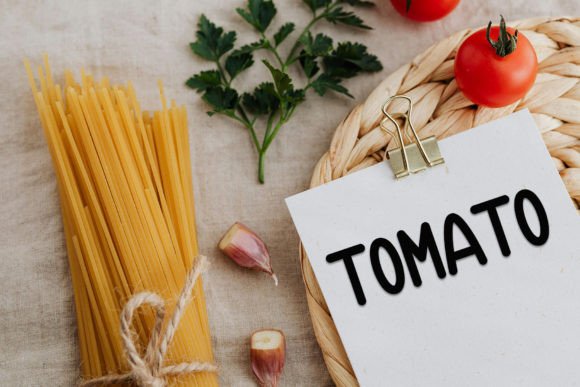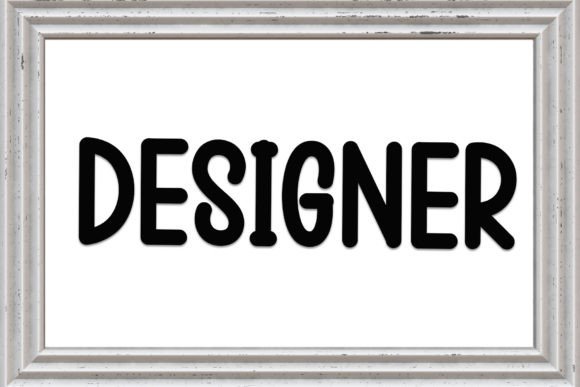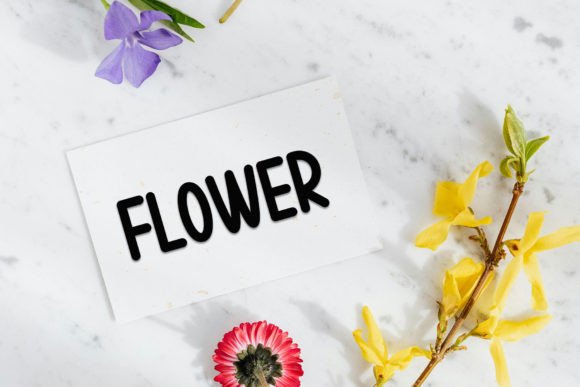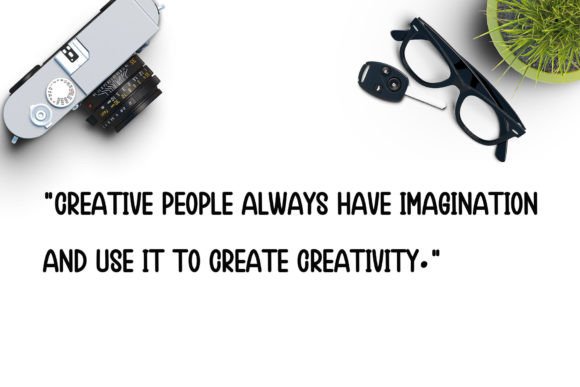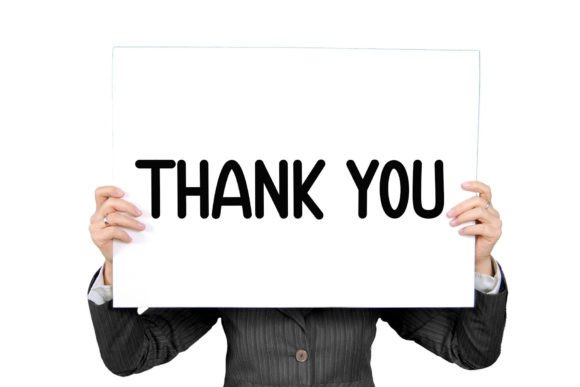
The Magic of Animal Font: A Festive Delight for Your Designs
It’s the most wonderful time of the year – and I’m not just talking about the holiday season! As a designer, I’m always on the lookout for that perfect font to make my projects shine. I recall a particularly stressful design moment when I was working on a festive greeting card project, and I just couldn’t find the right font to capture the cheerful spirit of the season. That’s when I stumbled upon Animal Font, and it instantly became my go-to typeface for all things merry and bright!
A Personal Review: What I Love About Animal Font
Here’s what makes Animal Font a standout in my book:
- ✨ Festive and happy vibe that instantly adds charm to your designs
- ✅ Unique decorative elements that set it apart from other holiday fonts
- 🎉 PUA coded for easy access to amazing glyphs and ligatures
- 👍 Perfect for greeting cards, gift labels, and holiday-themed projects
While Animal Font is a delightful addition to any design project, there are a few minor things to keep in mind:
- ⚠️ Some of the more intricate glyphs might require a bit of experimentation to get just right
- 🤔 Limited use outside of holiday-themed projects (but that’s not necessarily a bad thing!)
The Story Behind Animal Font
While the true origins of Animal Font remain a mystery, it’s clear that the designer was inspired by the joy and magic of the holiday season. Imagine a snowy evening, surrounded by twinkling lights and the sound of carolers in the distance – that’s the feeling that Animal Font embodies.
| Is Animal Font suitable for body text? | While Animal Font is perfect for headlines and titles, it might not be the best choice for body text due to its decorative nature. |